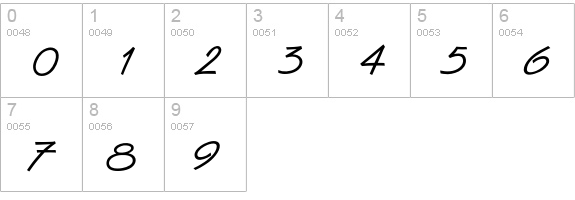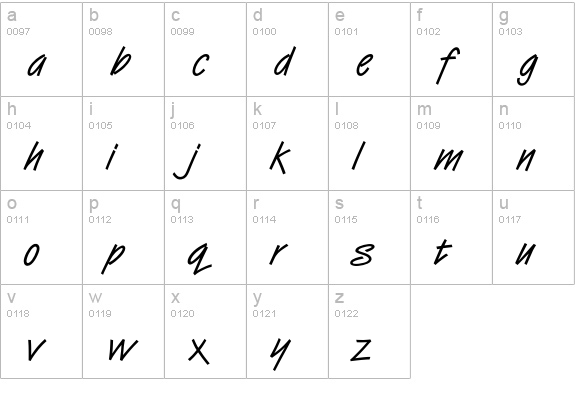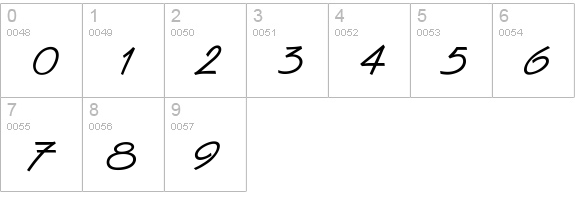
OPTIVanilla Font Details
OPTIVanilla is a modern and stylish font that exudes a sense of elegance and sophistication. Its clean lines and sleek design make it perfect for a wide range of design projects, from branding to packaging to web design. The font is versatile and can be used in both headers and body text, adding a touch of class to any project. The best part? OPTIVanilla is available for free download at FontsMarket.com. This means you can easily access this beautiful font and use it in your projects without any cost. Whether you're a professional designer or just starting out, OPTIVanilla is a great addition to your font collection. Download it today and elevate your designs with this stunning typeface.